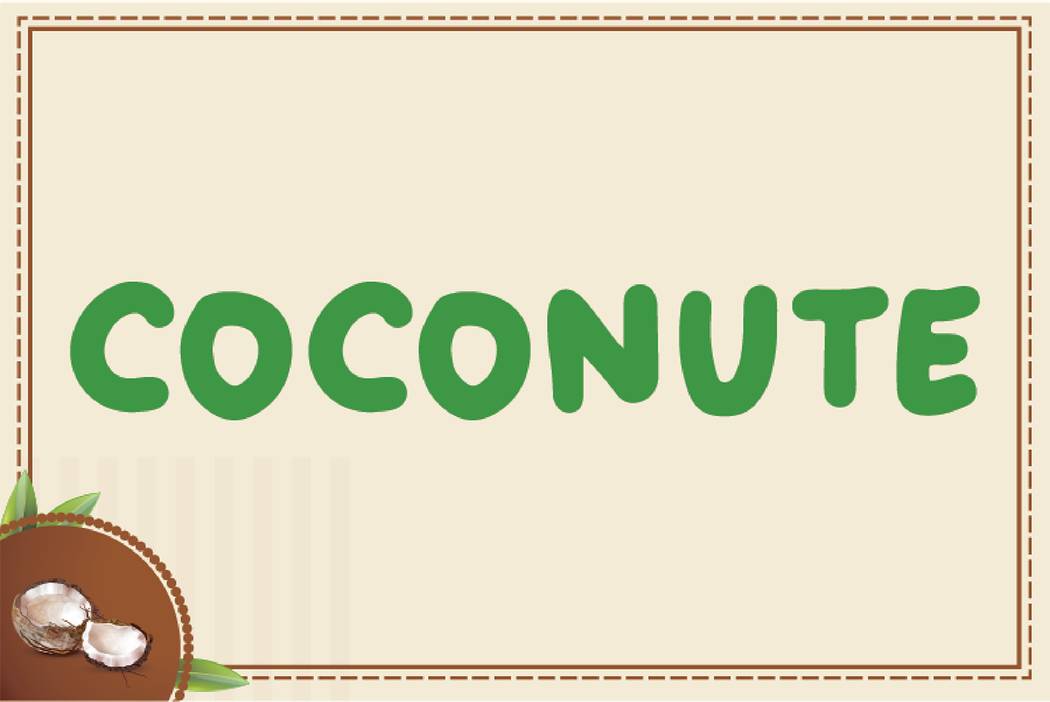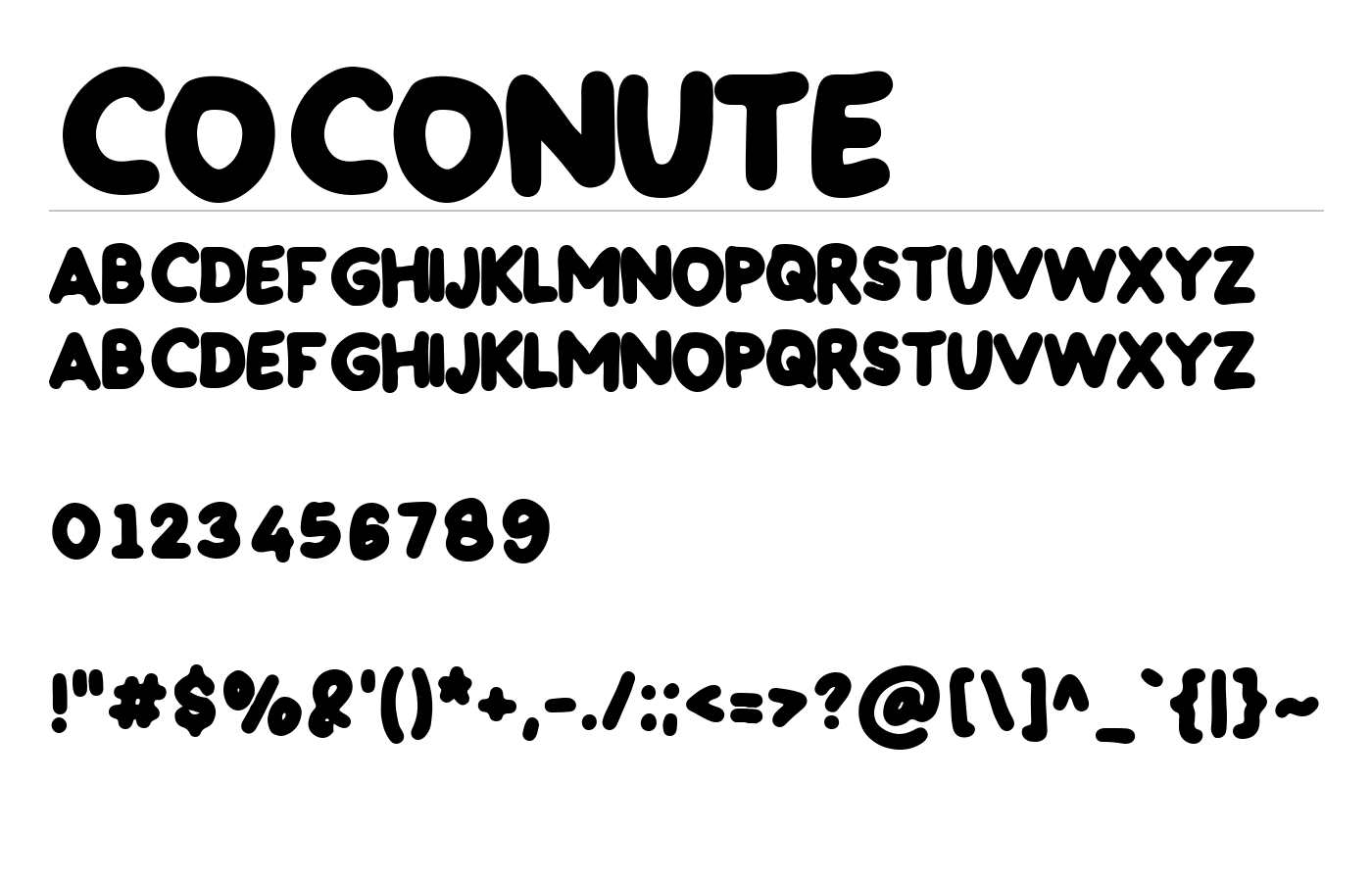
Coconute is a playful and bold sans serif font featuring rounded, chunky letterforms with a casual, hand-drawn feel. Its thick strokes and slightly irregular shapes give it a friendly, approachable personality, making it ideal for fun branding, children’s materials, and informal headlines. This font works well wherever a warm, lively vibe is needed to capture attention and convey a lighthearted mood.
Coconute Font
About Coconute Font